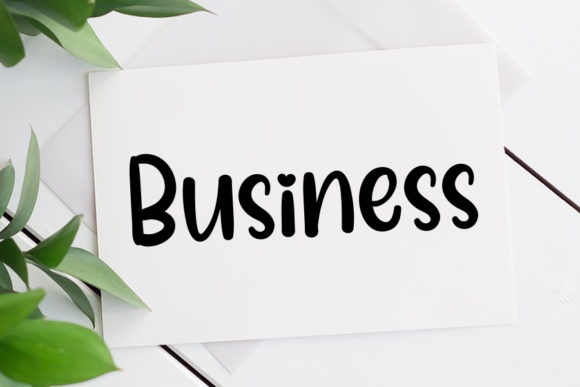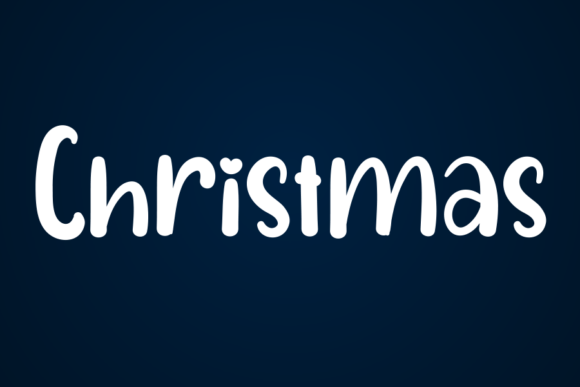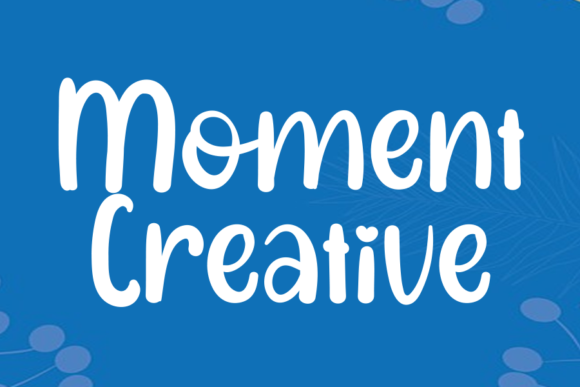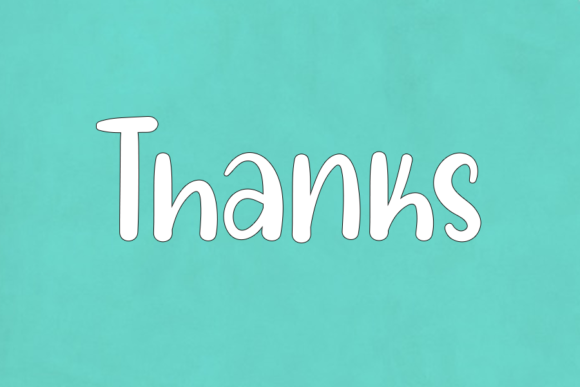
Introducing the Beautiful Sunkiss Font: Add a Touch of Joy to Your Designs
The Beautiful Sunkiss font is a delightful and charming handwritten font that is sure to bring a smile to your face. With its fun and friendly vibe, this font is perfect for a wide range of design projects that require a touch of joy and playfulness. Whether you’re a designer, crafter, or DIY enthusiast, the Beautiful Sunkiss font is a great addition to your font collection.
What Makes Beautiful Sunkiss Font So Special?
Beautiful Sunkiss is a carefully crafted font that is designed to evoke a sense of happiness and friendliness. Its unique and quirky style makes it perfect for cartoon-related designs, children’s games, quotes, titles, brand names, book covers, posters, and any other creation that requires a touch of whimsy. The font’s playful and carefree nature makes it an excellent choice for designers who want to add a personal touch to their work.
Uses for the Beautiful Sunkiss Font
The Beautiful Sunkiss font is incredibly versatile and can be used in a wide range of design projects, including:
- Cartoon-related designs: The font’s playful and fun style makes it perfect for cartoon characters, comics, and animations.
- Children’s games: The font’s friendly and approachable nature makes it an excellent choice for children’s games, puzzles, and activity sheets.
- Quotes and titles: Add a touch of personality to your quotes and titles with the Beautiful Sunkiss font.
- Brand names: Use the font to create a unique and memorable brand identity.
- Book covers: The font’s whimsical style makes it perfect for book covers, especially for children’s books and young adult fiction.
- Posters: Create eye-catching posters with the Beautiful Sunkiss font.
Why Choose the Beautiful Sunkiss Font?
There are many reasons why the Beautiful Sunkiss font stands out from the crowd. Here are a few:
- Unique style: The font’s quirky and playful style is sure to grab attention.
- Easy to read: Despite its playful nature, the font is easy to read and understand.
- Versatile: The font can be used in a wide range of design projects.
- Fun and friendly: The font’s friendly and approachable nature makes it perfect for designs that require a touch of joy.
Tips for Using the Beautiful Sunkiss Font
Here are a few tips for using the Beautiful Sunkiss font:
- Pair it with other fonts: Experiment with pairing the Beautiful Sunkiss font with other fonts to create a unique and interesting contrast.
- Use it in bold and bright colors: The font’s playful nature makes it perfect for bold and bright colors.
- Experiment with different sizes: The font looks great in a variety of sizes, from large headings to smaller body text.
The Beautiful Sunkiss font is a fun and friendly handwritten font that is sure to add a touch of joy to your designs. With its unique and quirky style, it’s perfect for a wide range of design projects, from cartoon-related designs to book covers and posters. Whether you’re a designer, crafter, or DIY enthusiast, the Beautiful Sunkiss font is a great addition to your font collection.